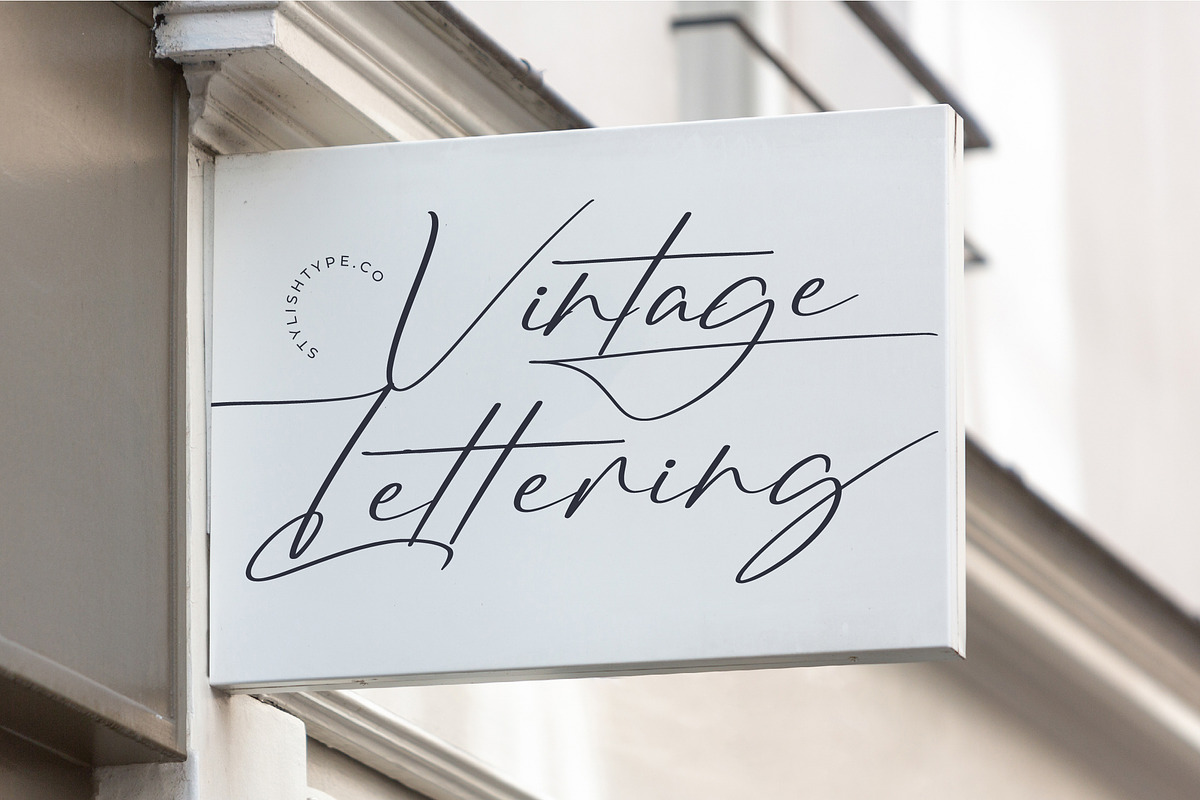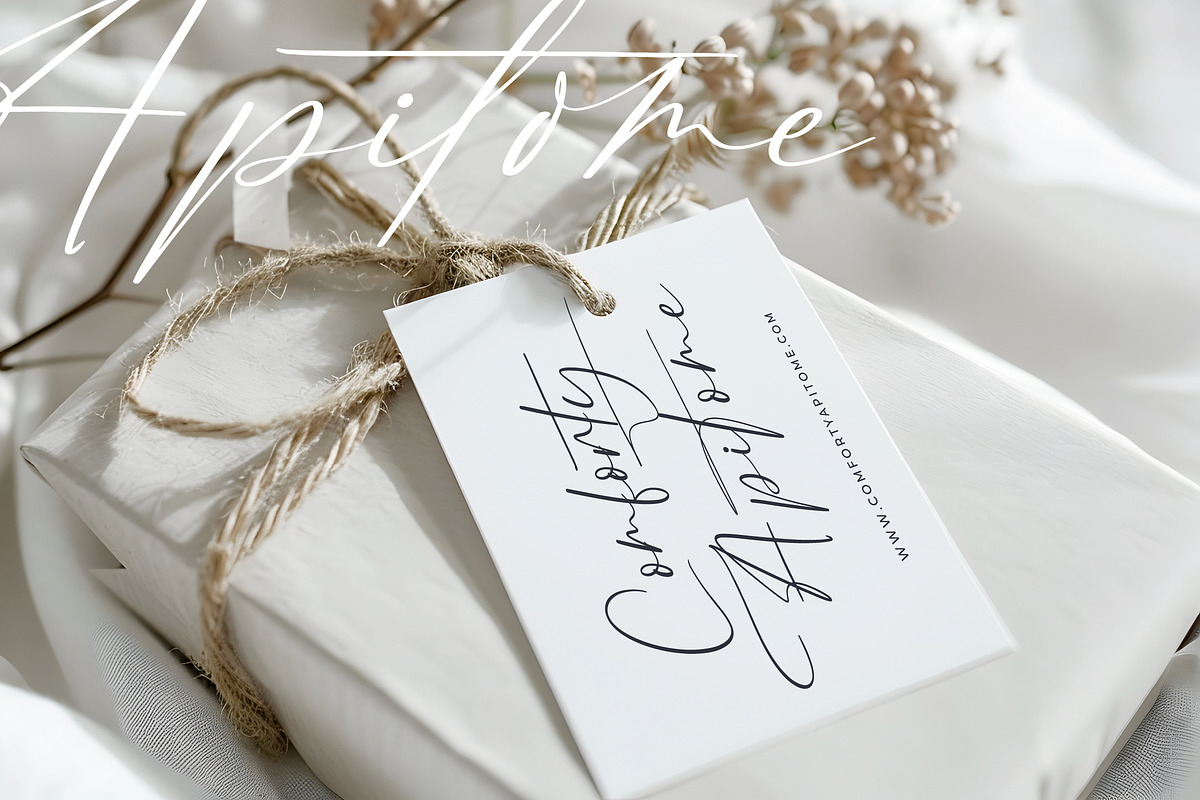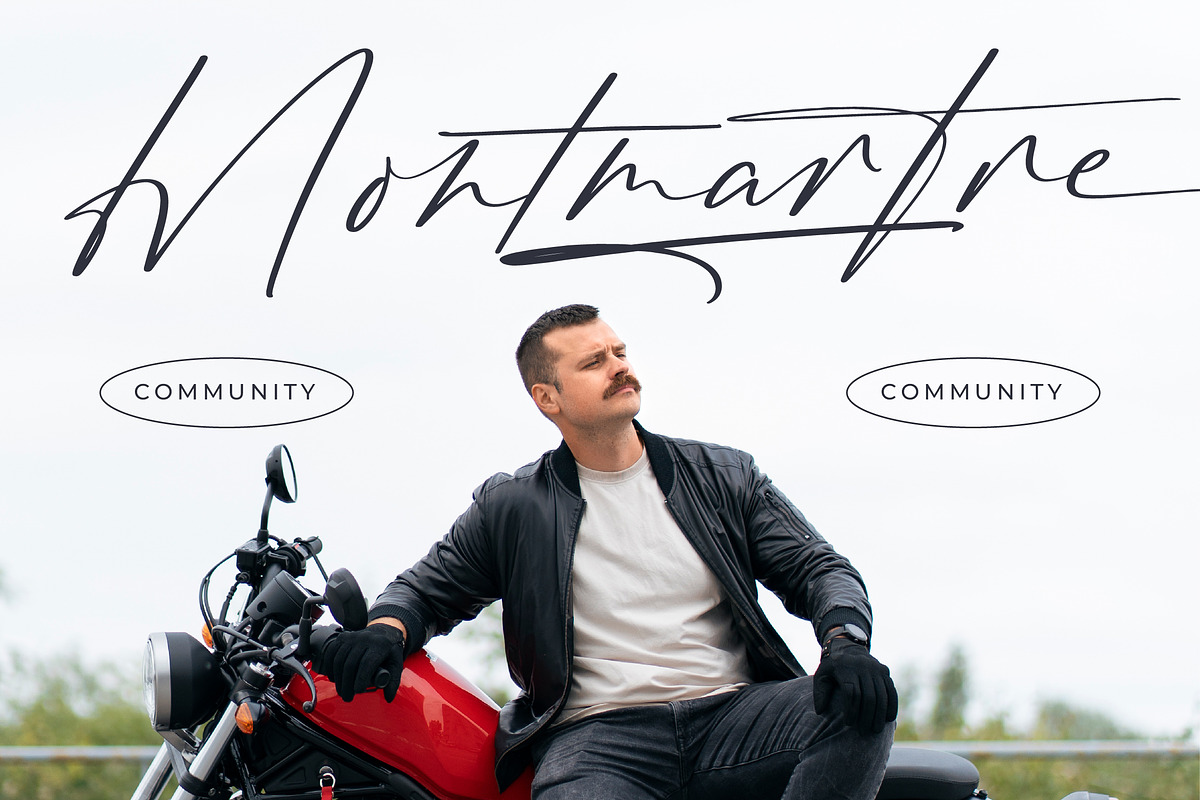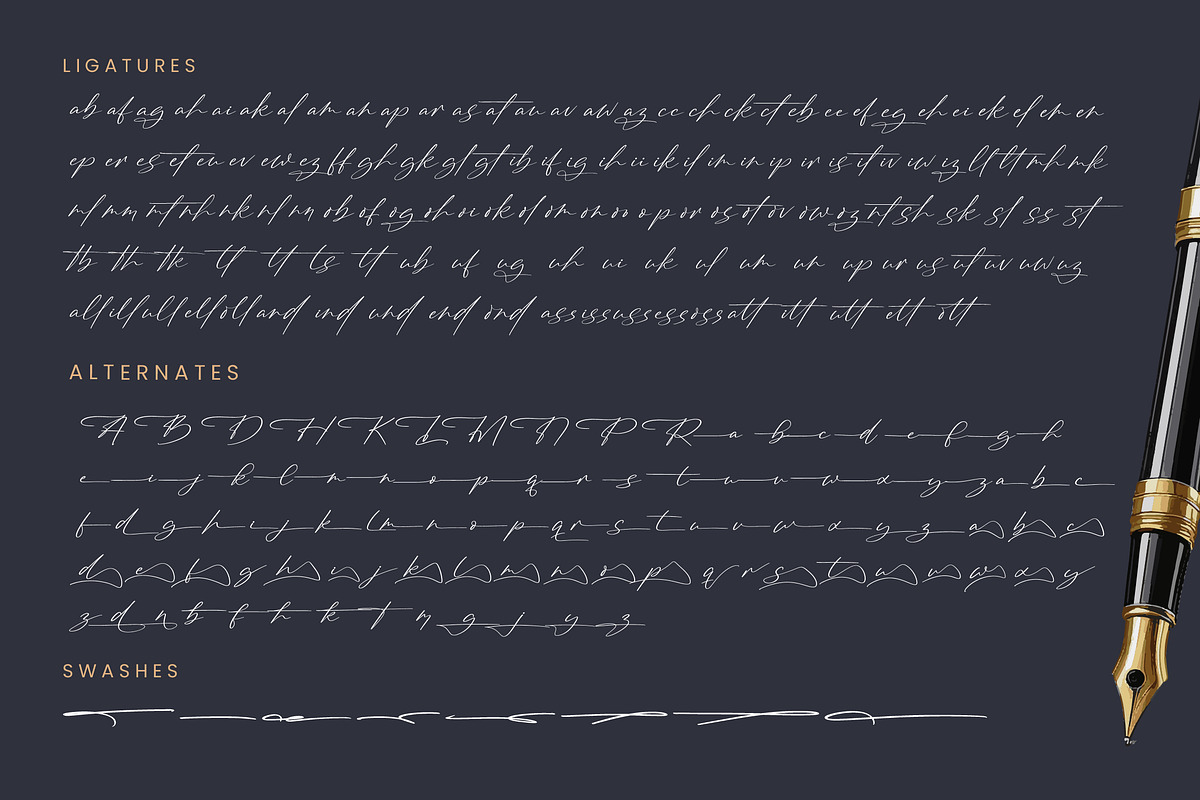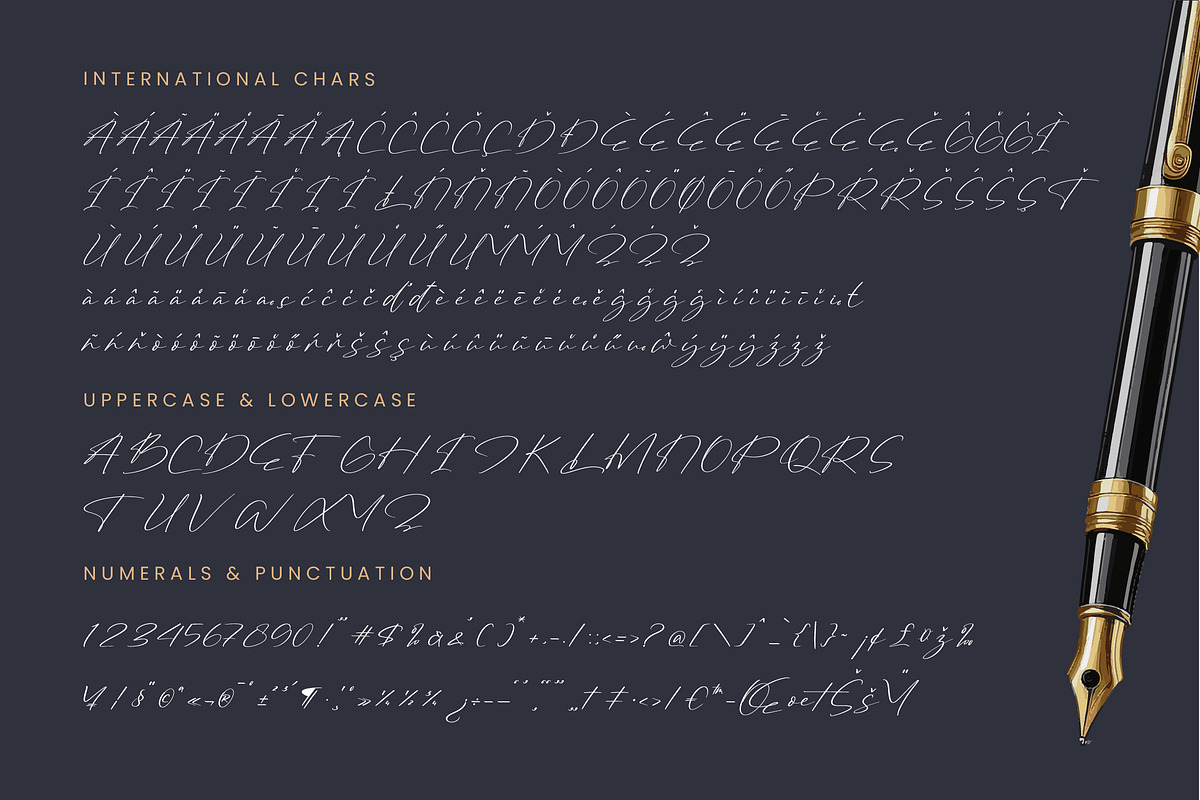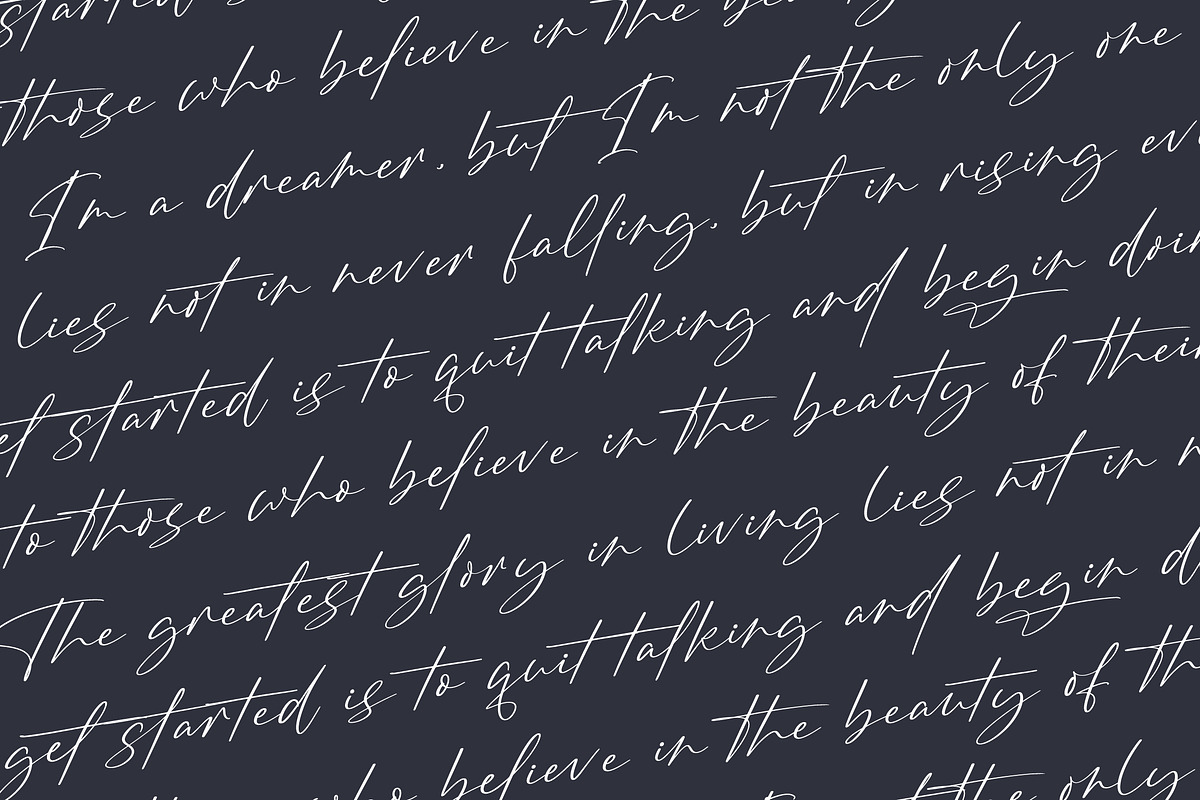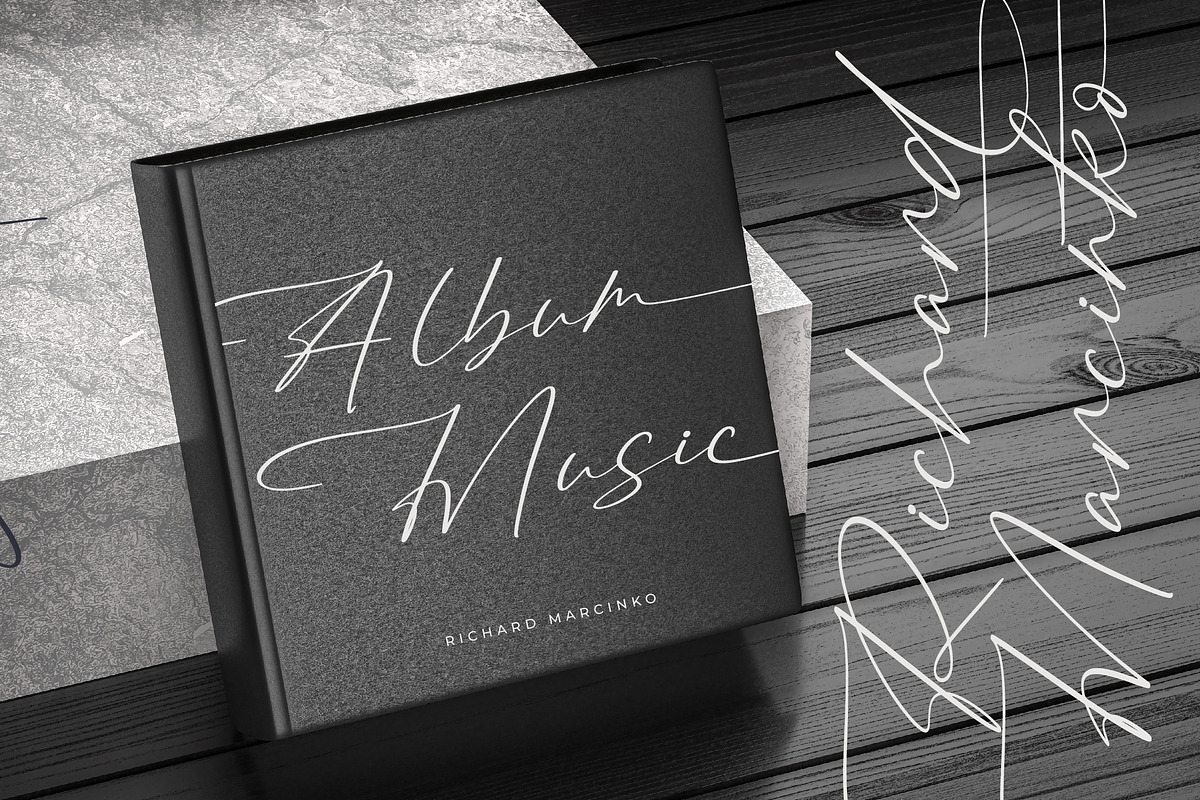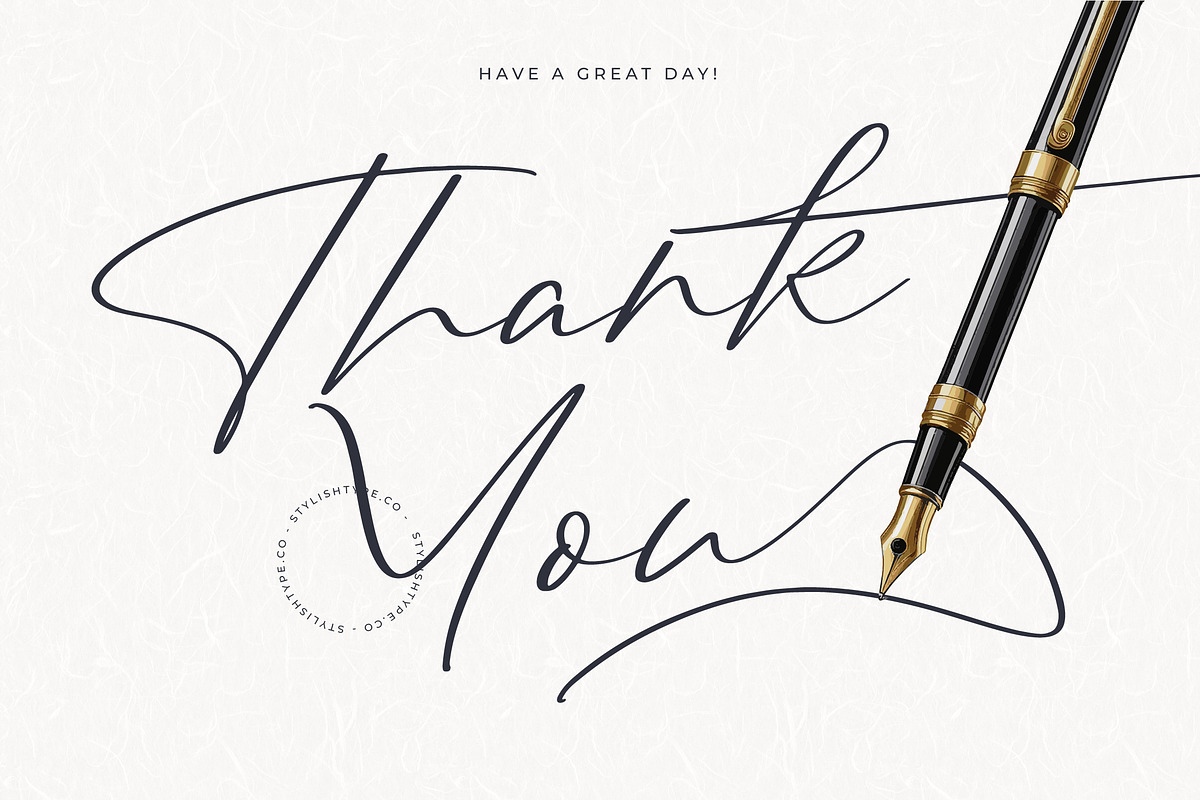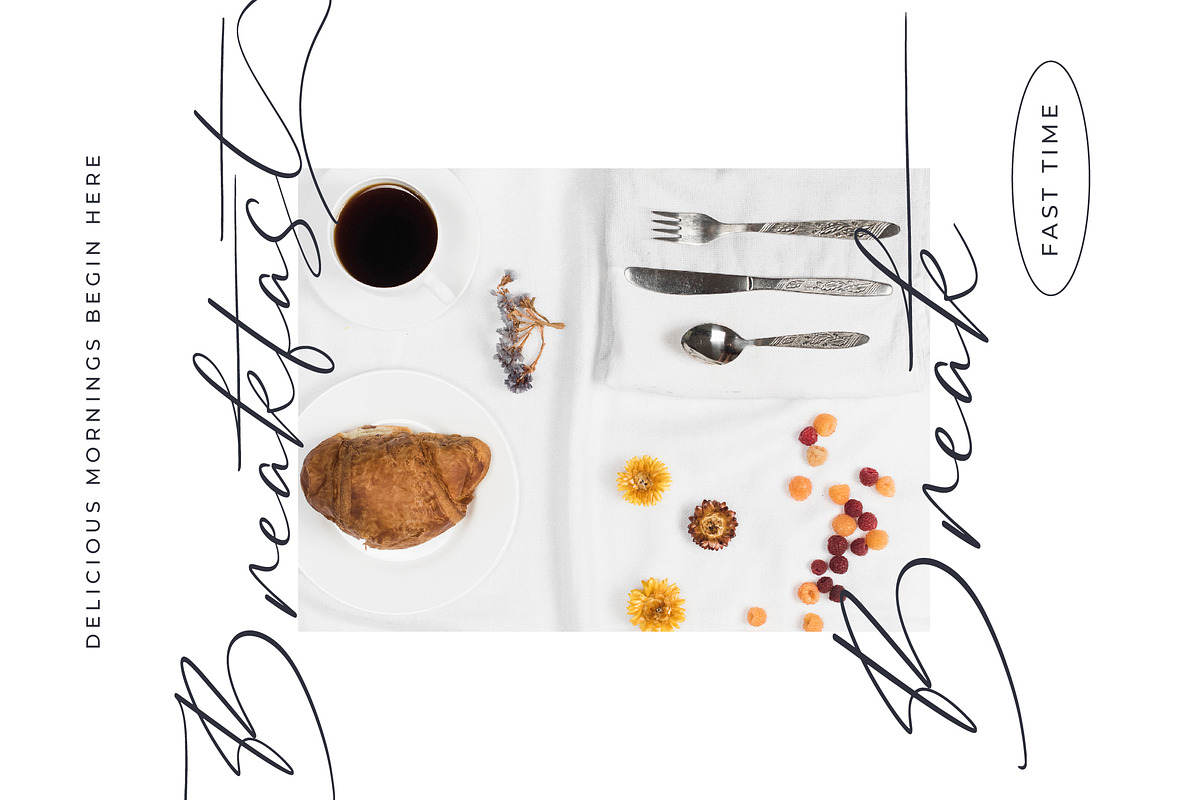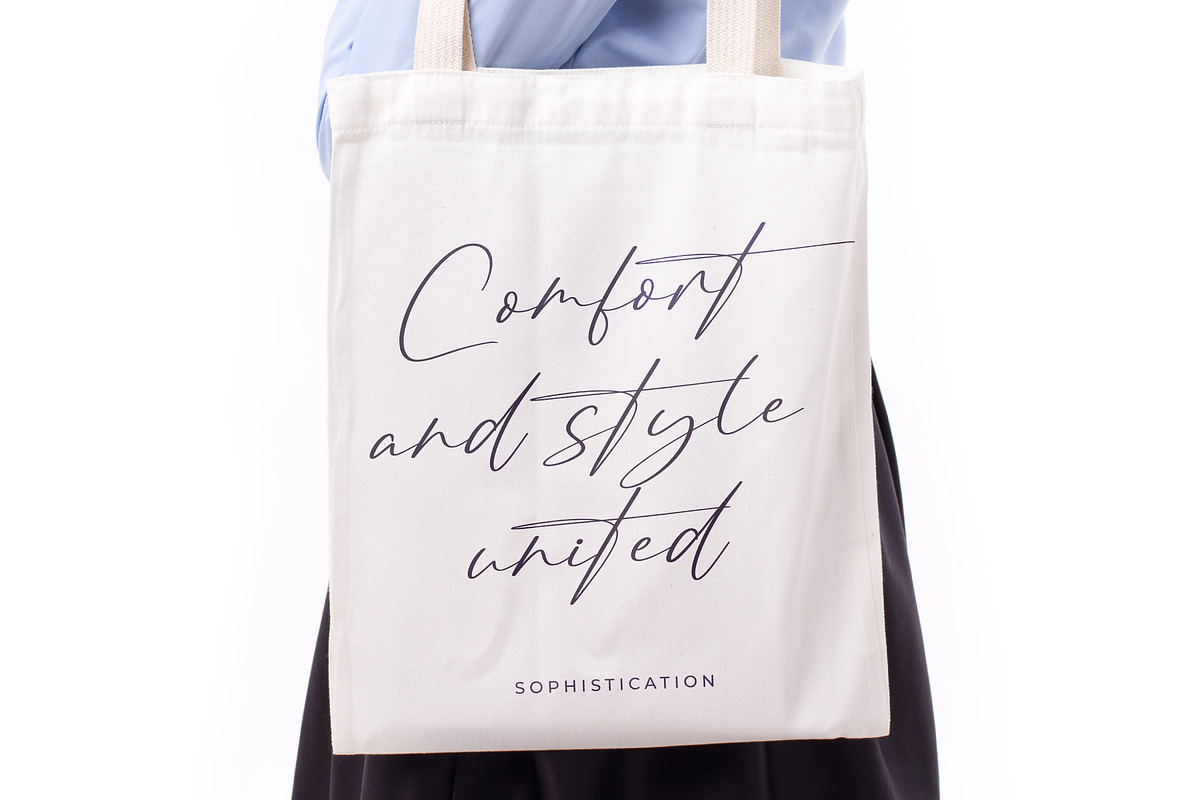
Brington Australi Stylish Signature
Brington Australi - Stylish Signature Font , from Stylishtype.Co , Suitable for any projects such as: logos, branding projects, homeware designs, product packaging, mugs, quotes, posters, shopping bags, t-shirts, book covers, name card, invitation cards, greeting cards, label, photography, watermark, special events, and all your other luxury and beautiful projects that need a Luxury Script taste.
- 138 Ligature 100 Alternates & 8 Swashes